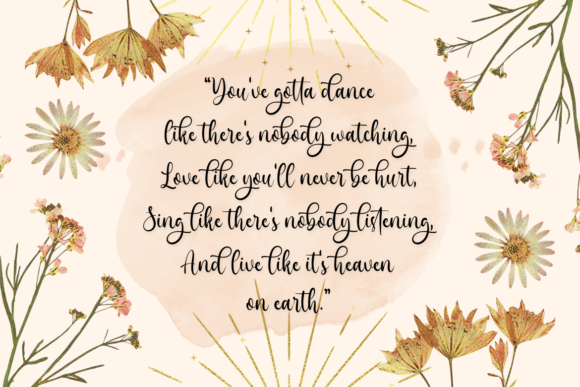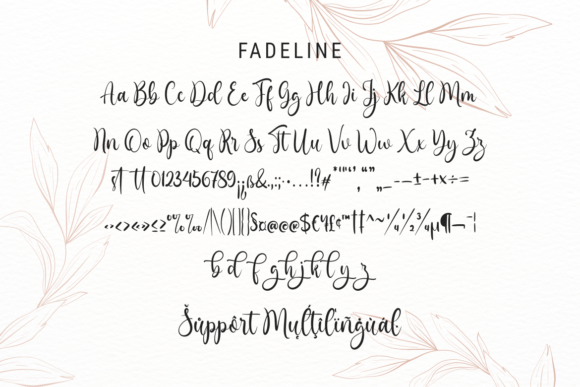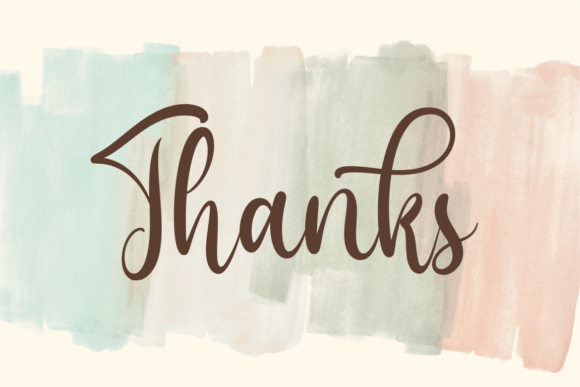
Fadeline Font: Add a Romantic Touch to Your Designs
Are you looking for a font that can add a touch of elegance and romance to your designs? Look no further than Fadeline Font! This lovely, stylish, and greatly detailed handwritten font is perfect for creating beautiful and eye-catching designs for Valentine’s Day, weddings, photography, and more.
What Makes Fadeline Font Special?
Fadeline Font is a unique and versatile font that is designed to bring a romantic touch to your creations. Its intricate details and flowing lines make it perfect for designs that require a personal and emotional touch. Whether you’re creating wedding invitations, Valentine’s Day cards, or photography logos, Fadeline Font is the perfect choice.
Key Features of Fadeline Font
- Handwritten Style: Fadeline Font has a beautiful handwritten style that adds a personal touch to your designs.
- PUA Encoded: This font is PUA encoded, which means you can access all of the amazing glyphs and alternates with ease.
- Highly Detailed: Fadeline Font is a greatly detailed font that is perfect for creating high-quality designs.
- Romantic Touch: This font is designed to add a romantic touch to your creations, making it perfect for Valentine’s Day and wedding designs.
Use Cases for Fadeline Font
Fadeline Font is a versatile font that can be used for a variety of design projects. Here are some use cases where Fadeline Font shines:
- Wedding Invitations: Create beautiful and elegant wedding invitations with Fadeline Font.
- Valentine’s Day Cards: Add a romantic touch to your Valentine’s Day cards with Fadeline Font.
- Photography Logos: Use Fadeline Font to create stunning photography logos that capture the essence of your brand.
- Social Media Graphics: Create eye-catching social media graphics with Fadeline Font that will grab the attention of your audience.
Tips for Using Fadeline Font
Here are some tips for using Fadeline Font to get the most out of your designs:
- Pair with Other Fonts: Pair Fadeline Font with other fonts to create a unique and interesting design.
- Experiment with Colors: Experiment with different colors to find the perfect combination that matches your brand.
- Use Glyphs and Alternates: Use the glyphs and alternates available in Fadeline Font to add more variety to your designs.
Fadeline Font is a beautiful and versatile font that is perfect for designers and crafters looking to add a romantic touch to their designs. With its intricate details, flowing lines, and PUA encoding, Fadeline Font is a must-have font for any designer. Whether you’re creating wedding invitations, Valentine’s Day cards, or photography logos, Fadeline Font is the perfect choice. So why wait? Download Fadeline Font today and start creating stunning designs that will leave a lasting impression!